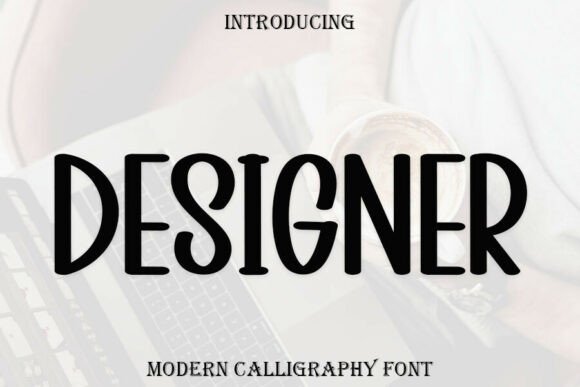
Modern Calligraphy for the Sophisticated Minimalist
You’ve spent hours agonizing over the perfect font, only to find yourself stuck in a sea of sameness. But then, it hits you – a vision of a font so sleek, so refined, that it elevates your entire design to new heights. This is the moment when the Designer Font comes into play.
The Designer Font is a game-changing calligraphy typeface that embodies the perfect balance of luxury and minimalism. Its tall, condensed proportions and rhythmic curves make it a standout choice for brands that crave sophistication and creativity. Whether you’re working on a high-end editorial layout or a luxury boutique logo, this font is sure to make a lasting impression.
For designers, the Designer Font is a valuable asset that can take your designs from bland to grand. Its clean, flowing lines and architectural precision make it an ideal choice for minimalist environments where every element counts.
Key Features of Designer Font
- Unique Characteristics: The font features a unique blend of modern and vintage elements, making it perfect for creative projects that require a touch of sophistication and elegance.
Designer Font Review
Overall, I’m quite impressed with the Designer Font and I’d say it’s a solid addition to any designer’s toolkit. Here are the things that work well:
- ✨ Beautiful typography: The font’s aesthetic is clean, modern, and highly customizable. It’s perfect for creating visually appealing designs.
- ✨ Wide range of applications: From print to digital, Designer Font is versatile and suitable for various design projects.
- ✨ Excellent legibility: The font’s letterforms are clear and easy to read, making it perfect for body text and headings.
- ⚠️ Limited ligature support: While the font has a wide range of glyphs, ligature support is limited, which can lead to some awkward letter combinations.
- ⚠️ Not ideal for small text sizes: At very small text sizes, the font can become difficult to read, especially for body text.
Overall, I’d give Designer Font 4 out of 5 stars. It’s a great choice for designers who value high-quality typography, but it may not be the best fit for projects that require extensive ligature support or very small text sizes.